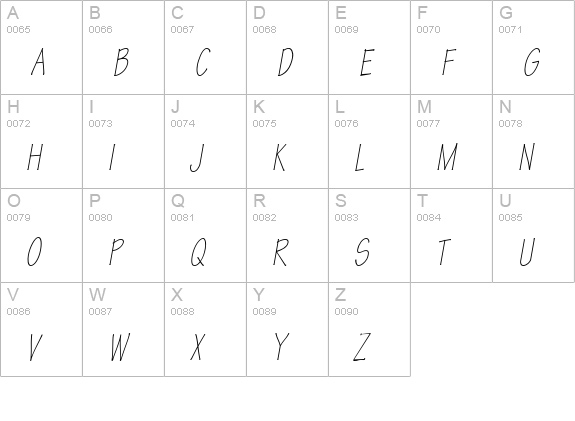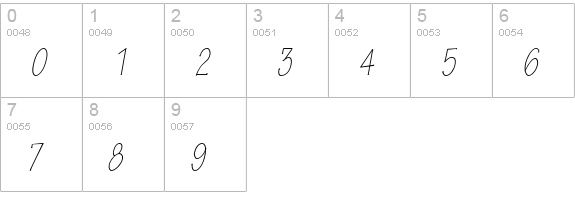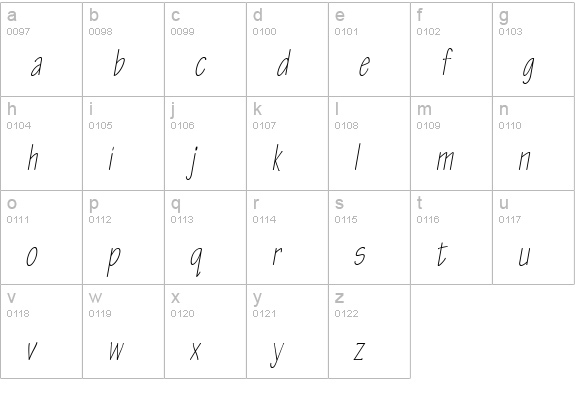
Tekton Pro Light Condensed Oblique is a refined, elegant, condensed-width, italic variant in the Tekton typeface family \xE2\x80\x94 well suited to elegant body text, refined sub-headings, and luxury branding.
Tekton Pro Light Condensed Oblique font is a sleek and stylish typeface that combines elegance with a touch of modernity. Its condensed design adds a level of sophistication to any project, making it perfect for professional and creative applications alike. With its slanted and oblique form, this font exudes a sense of dynamism and movement. It adds a subtle twist to your text, making it visually engaging and captivating to the eye. Whether used for headlines, titles, or body text, Tekton Pro Light Condensed Oblique font effortlessly grabs attention and enhances readability. One of the key features of this font is its versatility. It works equally well in both print and digital media, making it a go-to choice for designers, advertisers, and marketers. From business cards and brochures to websites and social media graphics, Tekton Pro Light Condensed Oblique font brings a touch of sophistication to any project. And the best part? Tekton Pro Light Condensed Oblique font is freely available for download at FontsMarket.com. You can easily access and use this font without any restrictions, allowing you to unleash your creativity without worrying about any additional costs. So, whether you are designing a logo for a high-end brand, creating a professional presentation, or working on a personal project, Tekton Pro Light Condensed Oblique font is here to elevate your design to new heights. With its sleek and modern aesthetic, versatility, and the fact that it is freely available to download at FontsMarket.com, this font is a must-have for any designer or creative professional.